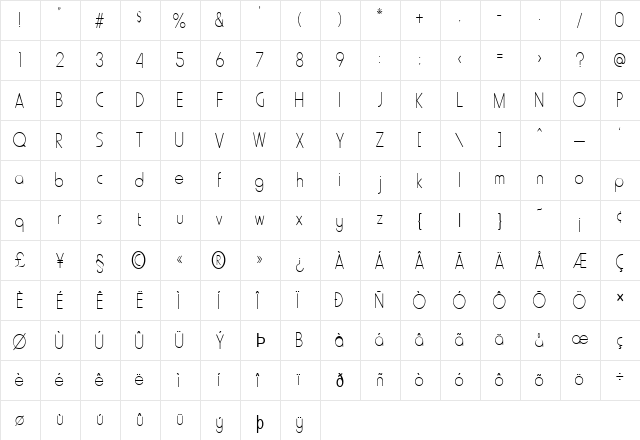
FZ BASIC 20 COND Normal Font Preview
FZ BASIC 20 COND Normal
Design Context for FZ BASIC 20 COND Typeface
FZ BASIC 20 COND is a composed and adaptable typeface that performs quietly and consistently across a wide range of design contexts. The condensed width makes it efficient for tight spaces without sacrificing legibility.